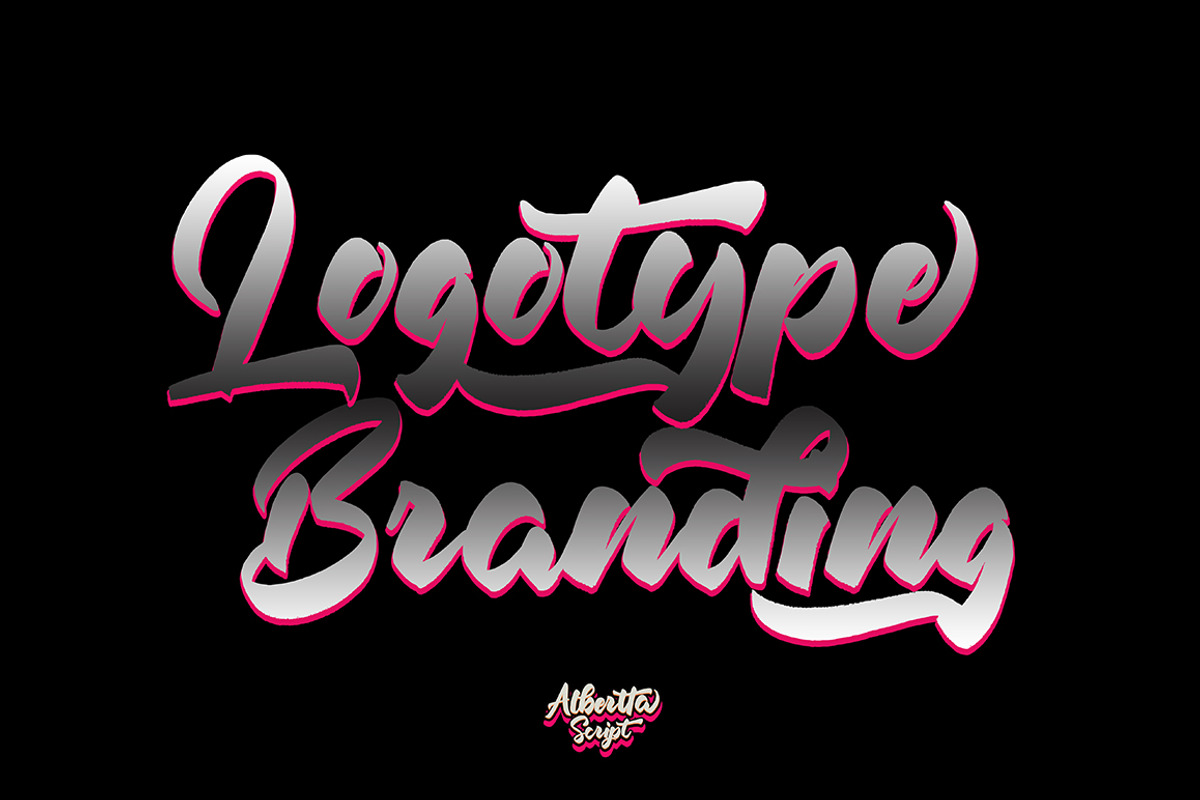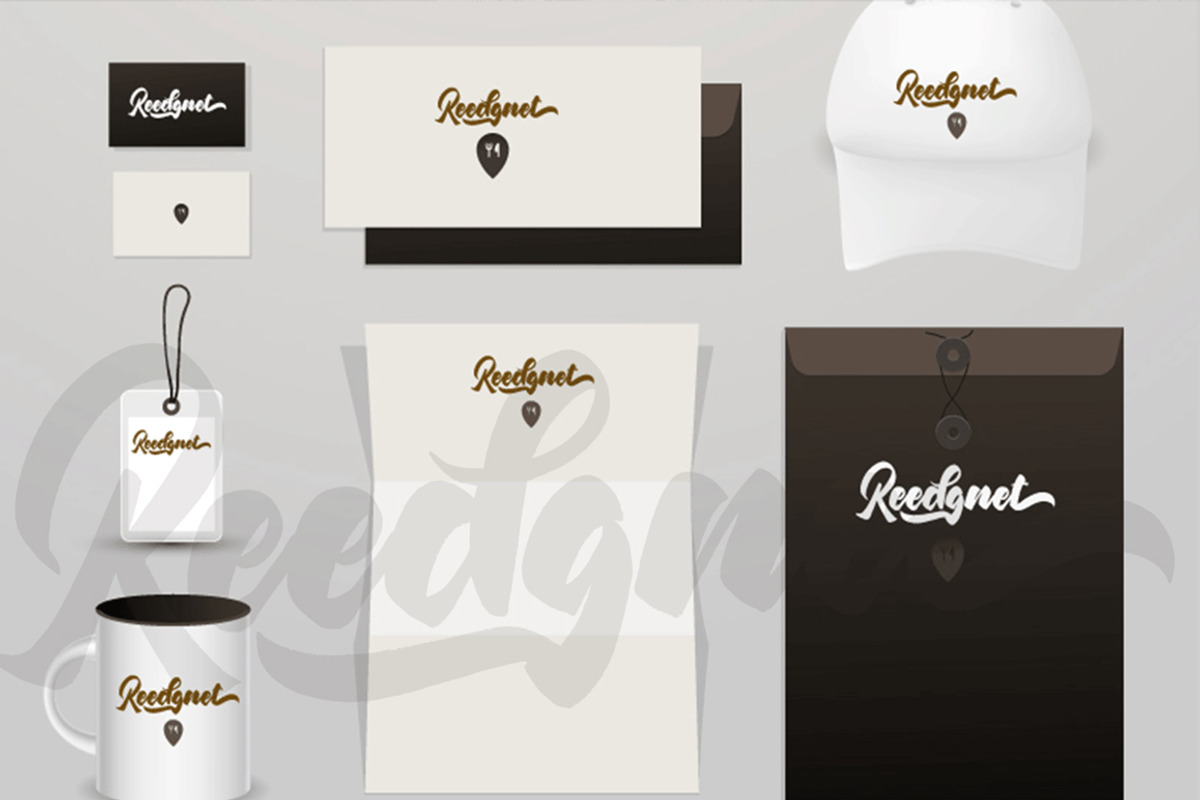
Albertta script font with modern style, this font will perfect for many different project ex: quotes, logo, blog header, poster, banding, fashion, apparel, letter, invitation, stationery, etc...